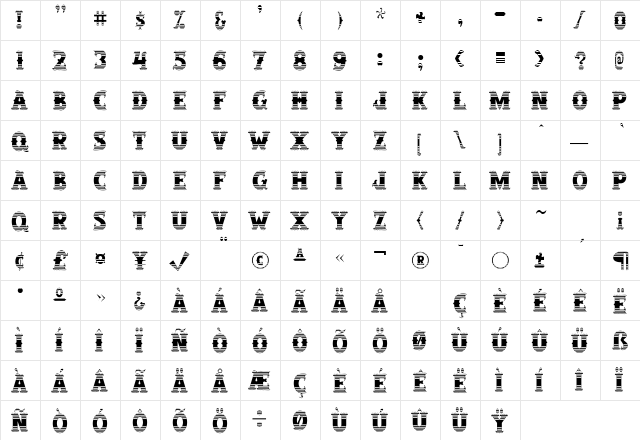
SalloonStripeEnds Regular
Design Context for SalloonStripeEnds Typeface
SalloonStripeEnds is a composed and adaptable typeface that performs quietly and consistently across a wide range of design contexts.